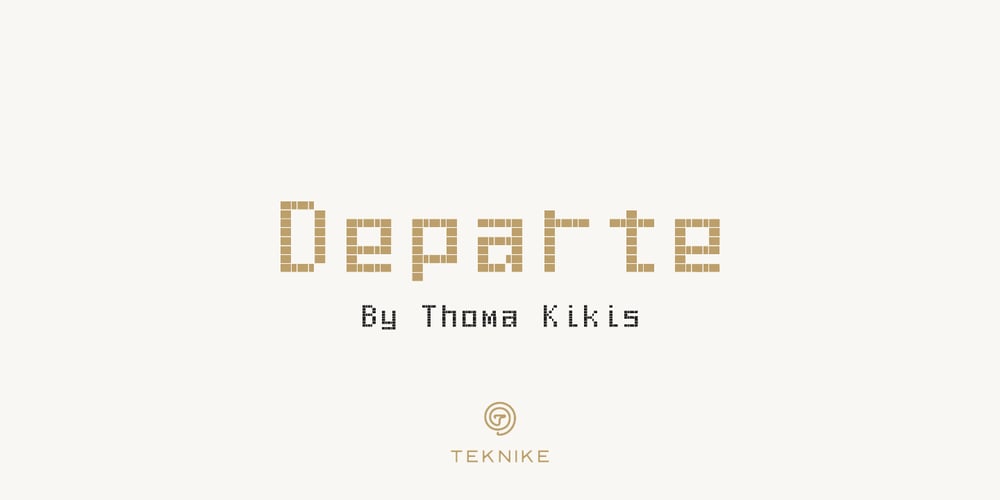
Departe Font Family was designed by Thoma Kikis and published by TEKNIKE. Departe contains 9 styles and family package options. Departe is a geometric monospace display font. The typeface is made from groups of single basic rectangular geometric units. Departe is inspired by structured and organic geometry. The name is derived from the Spanish departe, “de” (of) and “parte” (part). Departe is great for display work, logos, structures, architecture, technology, biology, sports, monograms, quotes, headings and posters.